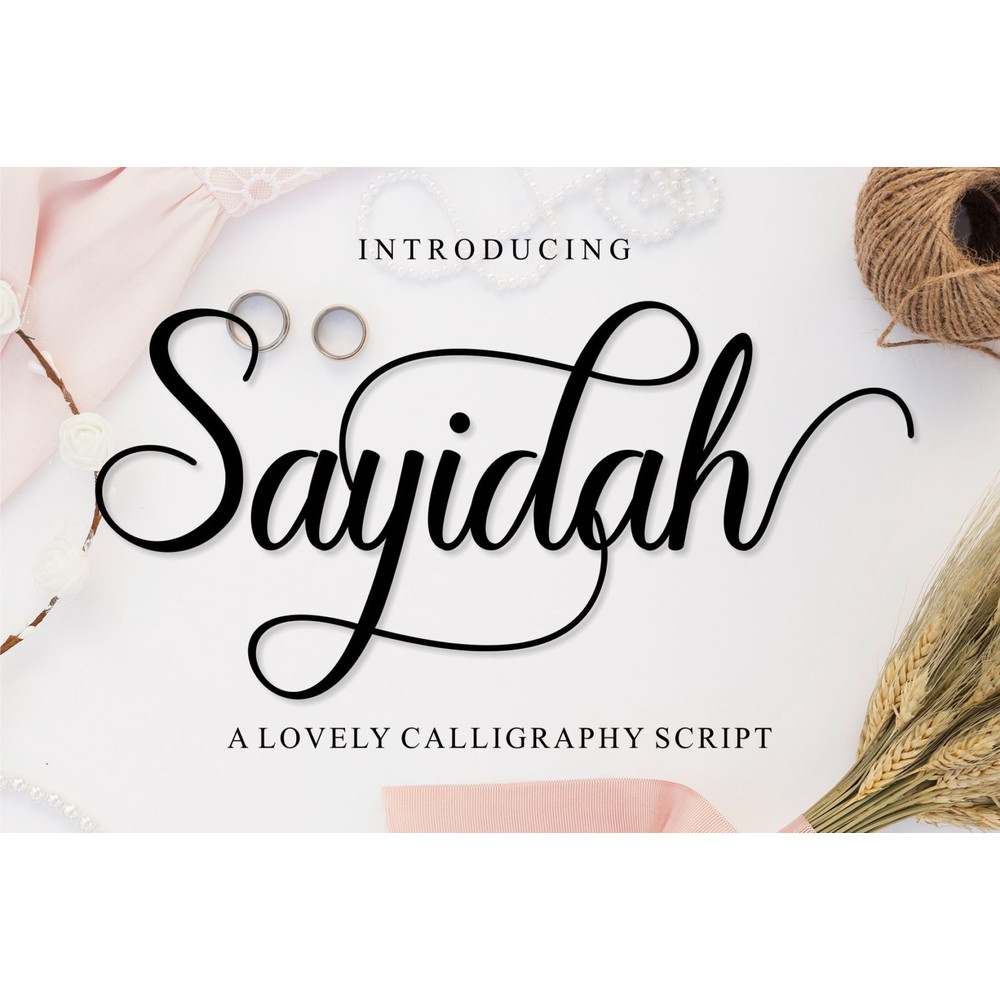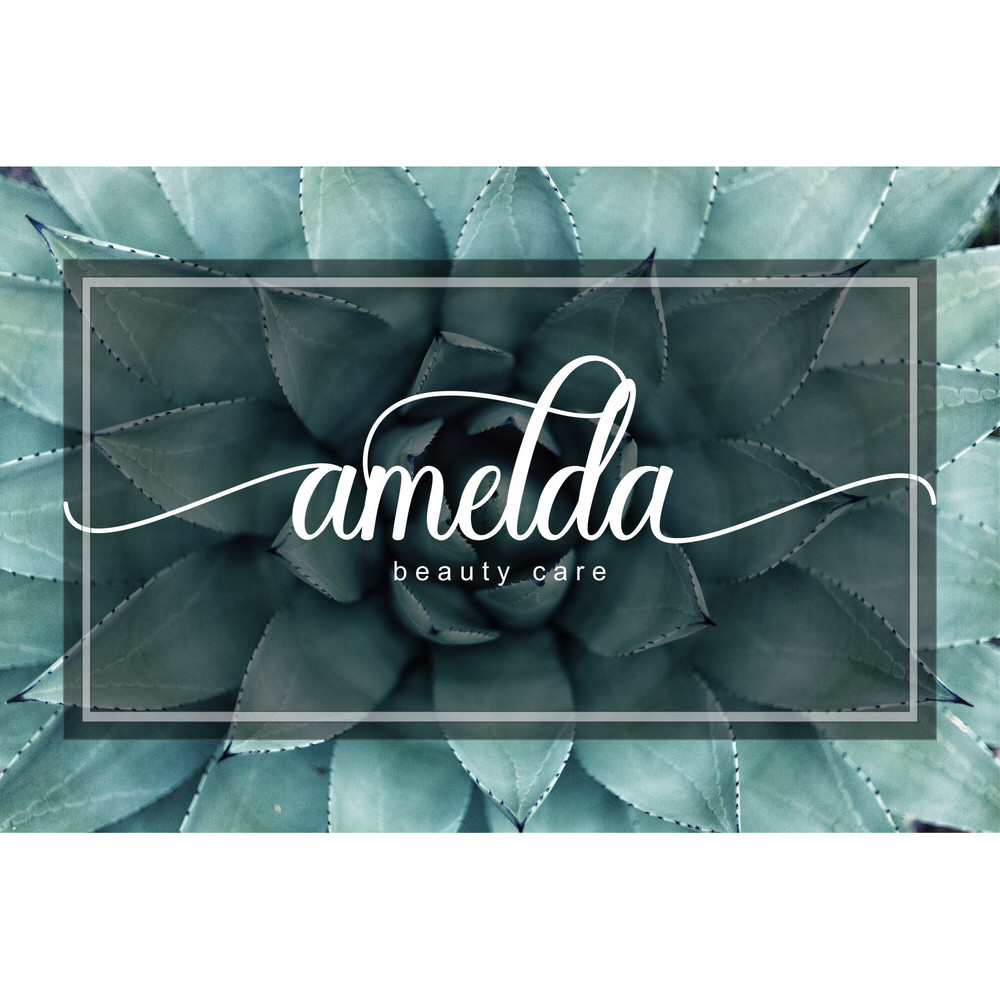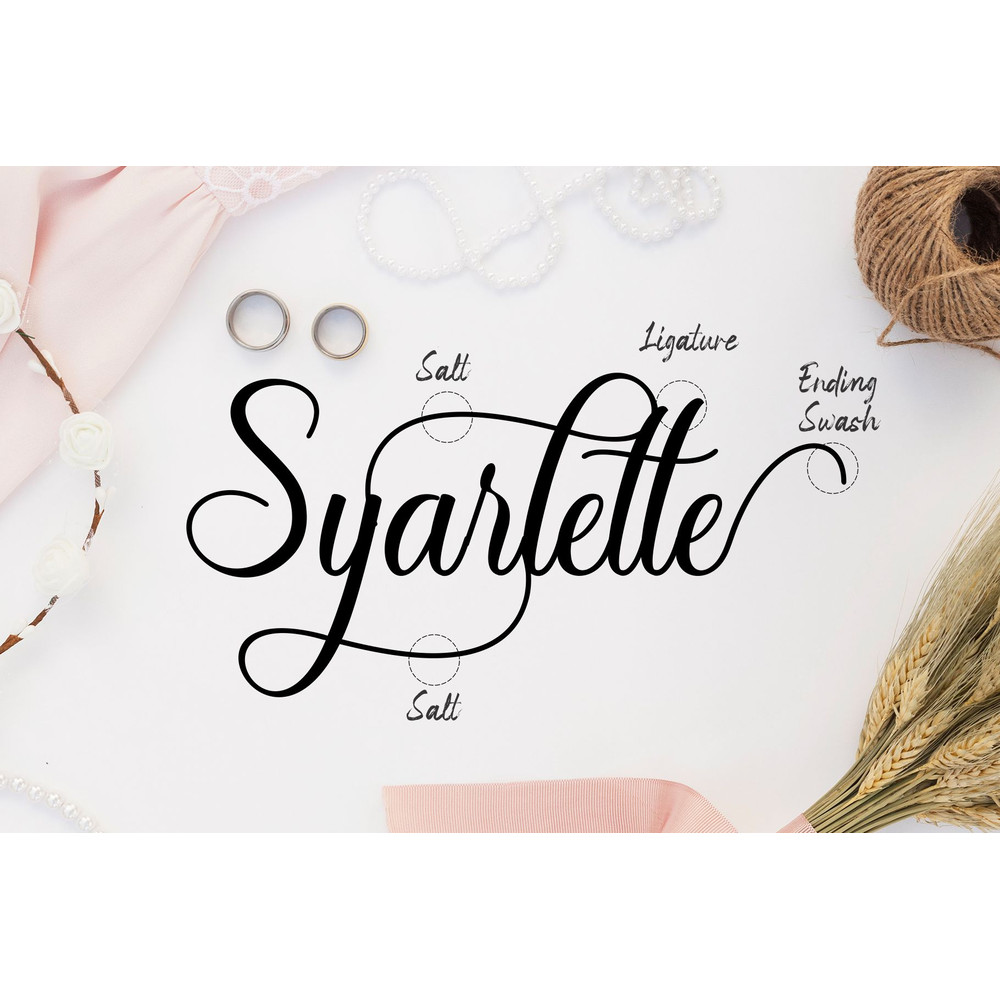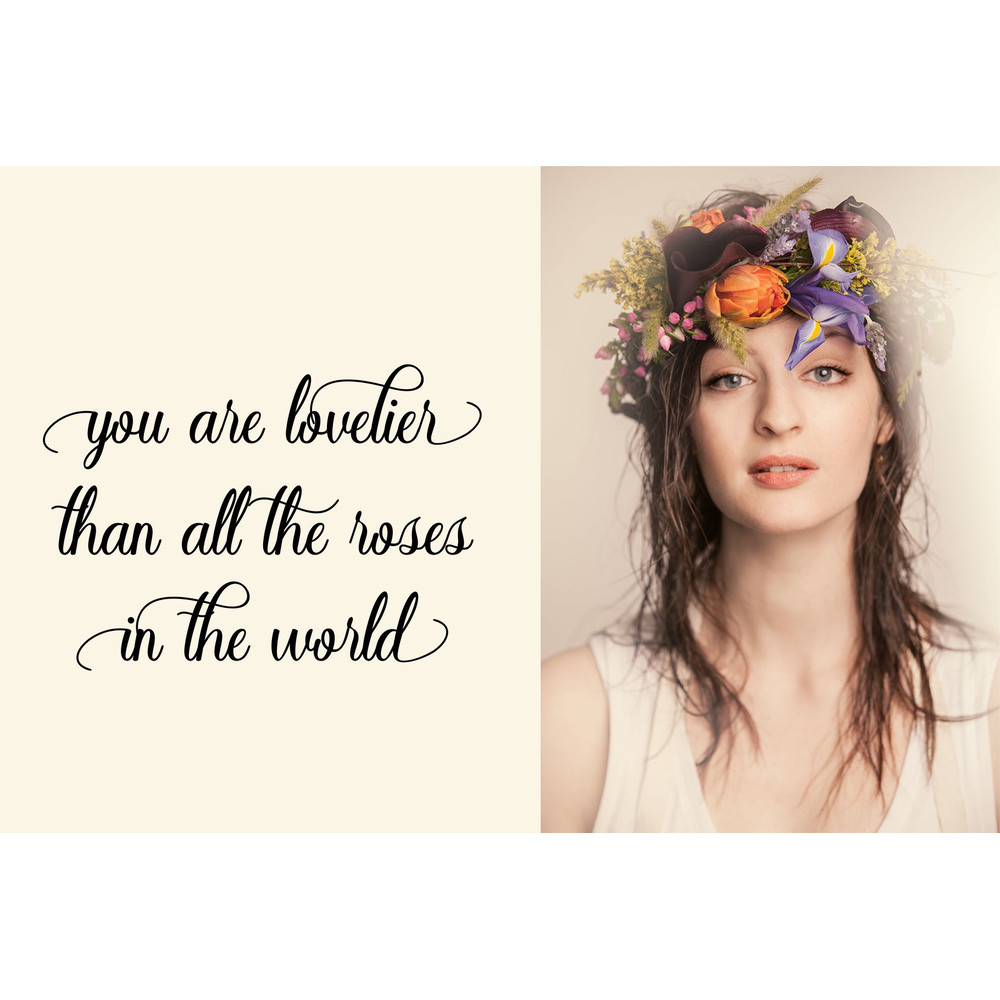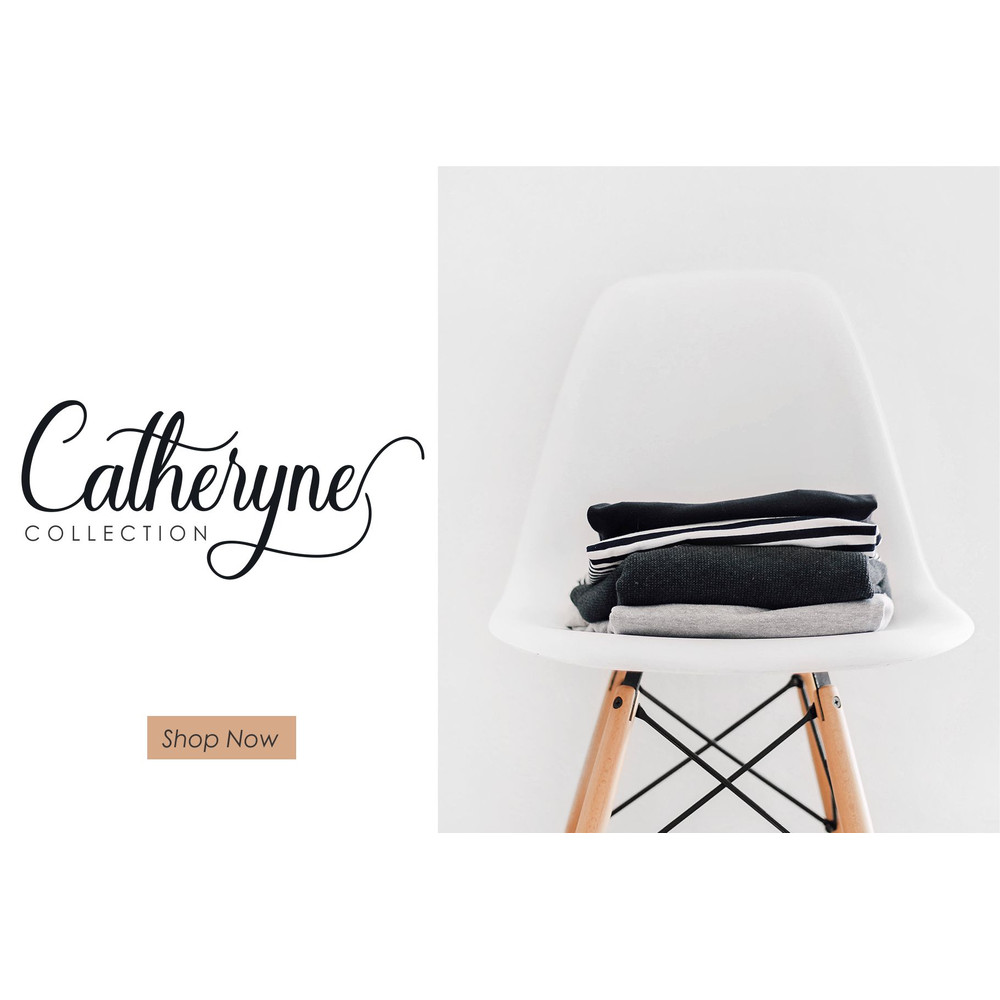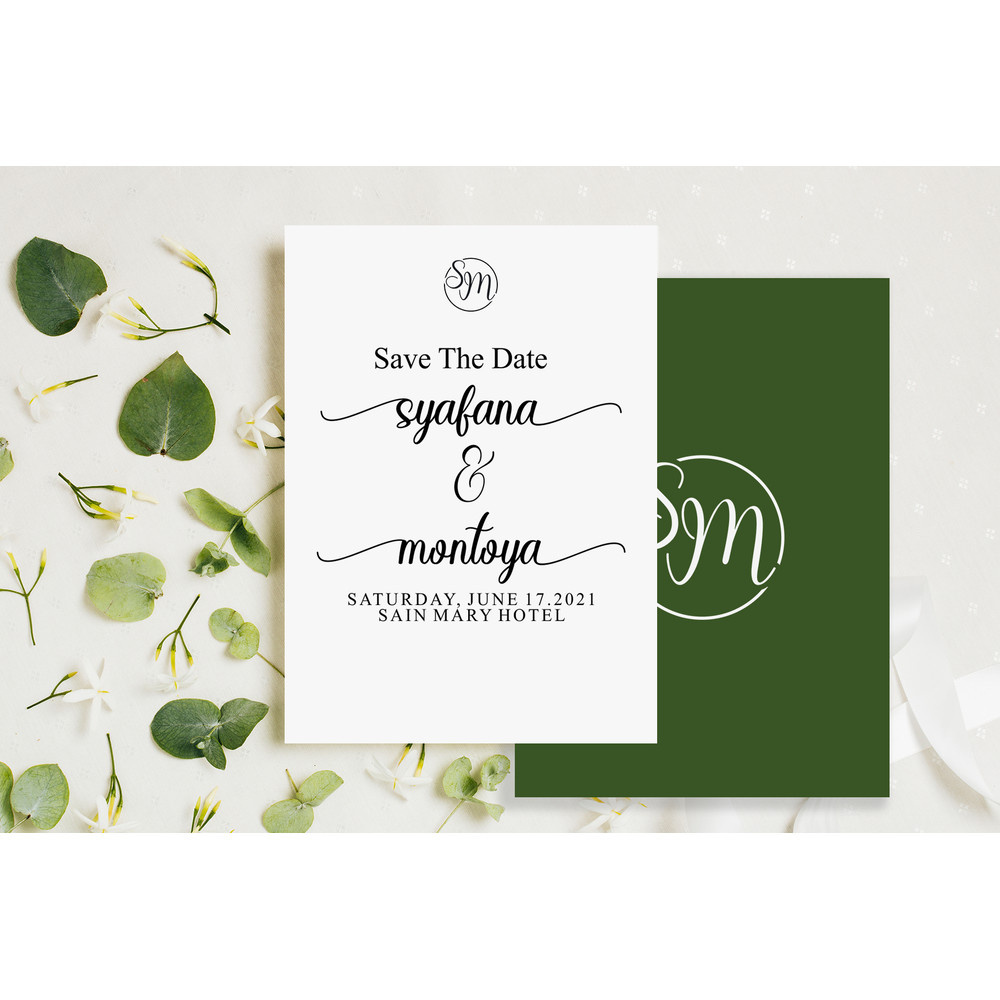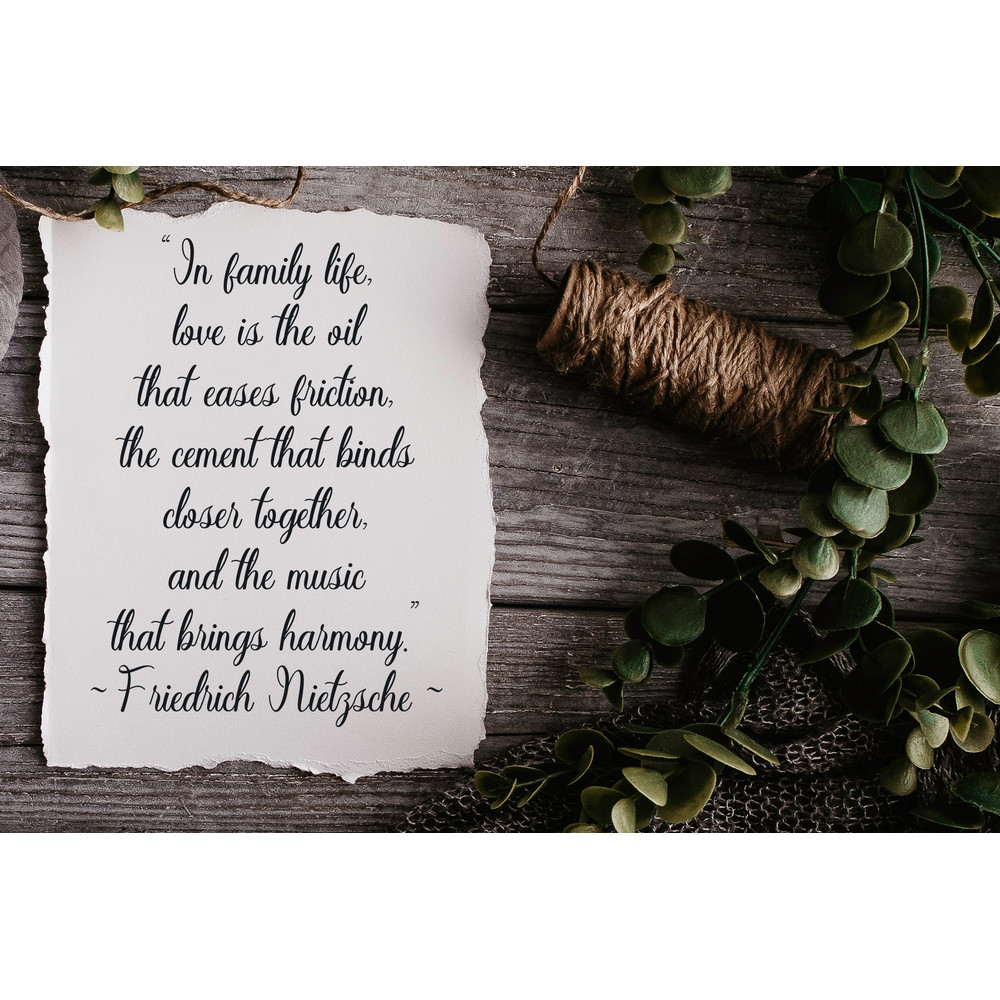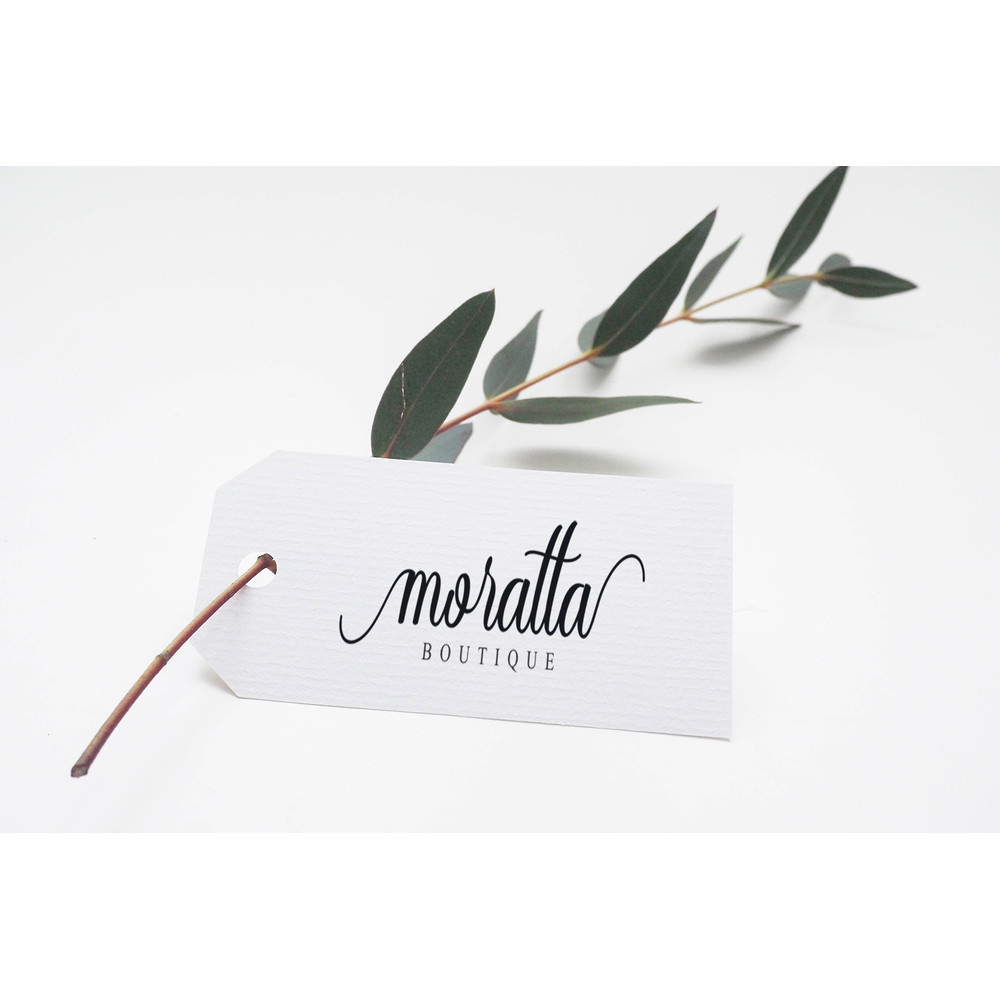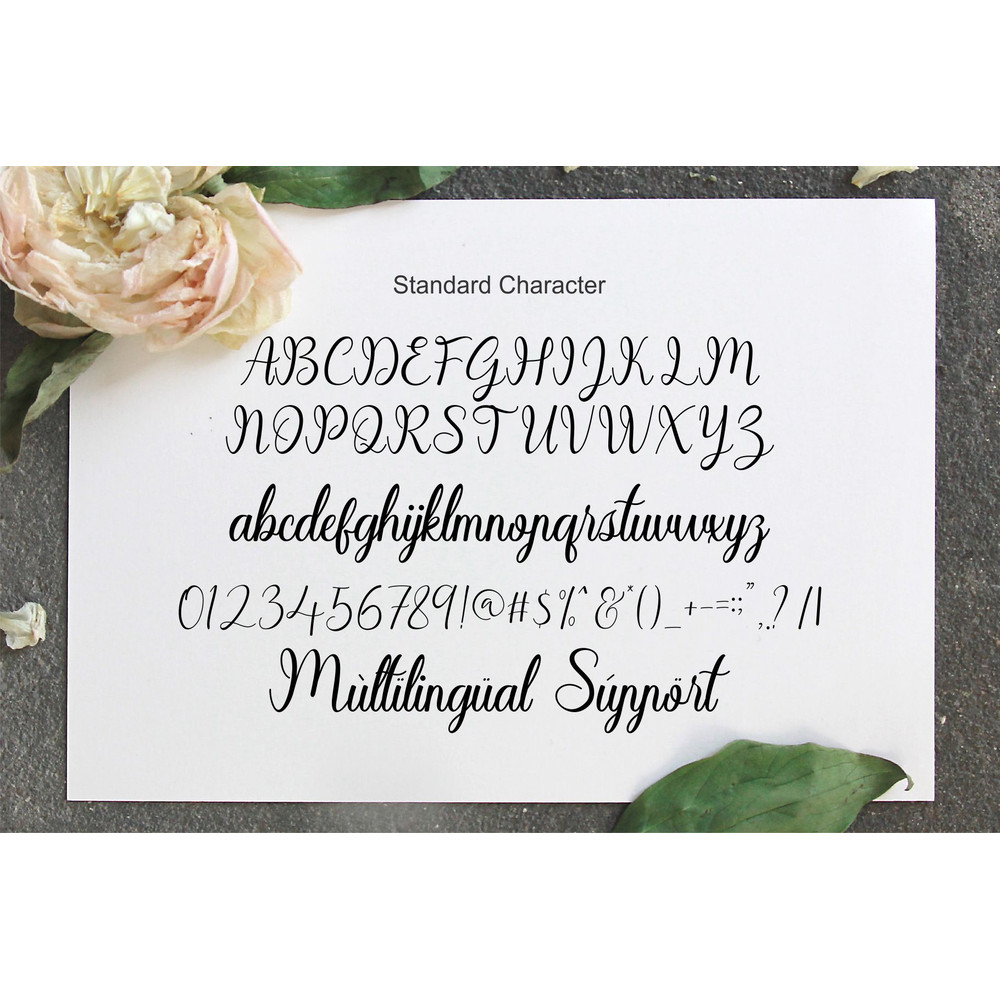
Introducing ‘Sayidah’ beautiful handwritten fonts that are made with lots of swash, alternatives, and ligatures to enhance the appearance of design and to meet various design needs such as logos, business cards, trademarks, wedding invitations, branding, packaging and so on.